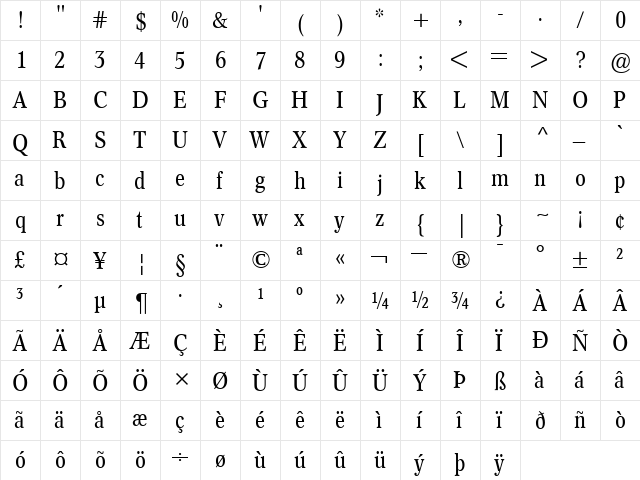
ConcordeBE-Condensed Roman
Design Context for ConcordeBE-Condensed Typeface
ConcordeBE-Condensed takes a measured approach to typography — its balanced proportions and neutral character make it a reliable workhorse for both digital and print work. The condensed width makes it efficient for tight spaces without sacrificing legibility.